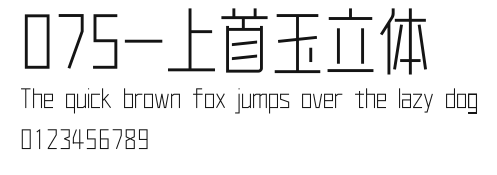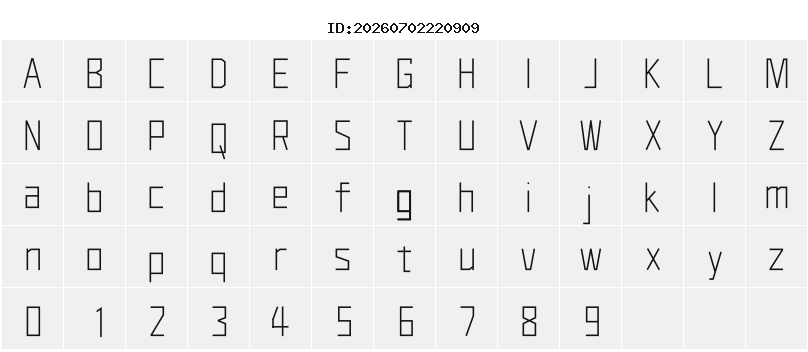
About 075-上首玉立体.ttf
075-上首玉立体.ttf is a modern, elegant sans-serif font designed for ultimate readability and visual harmony. Perfect for branding, headlines, web design, and print materials.